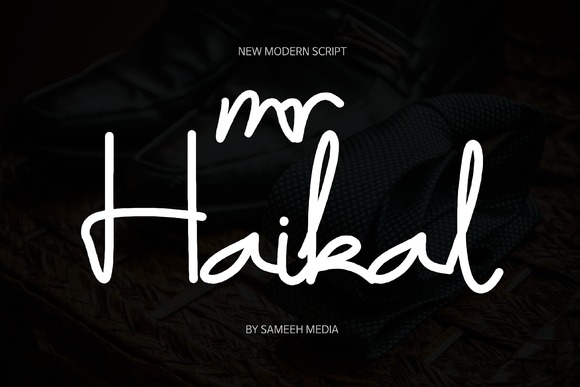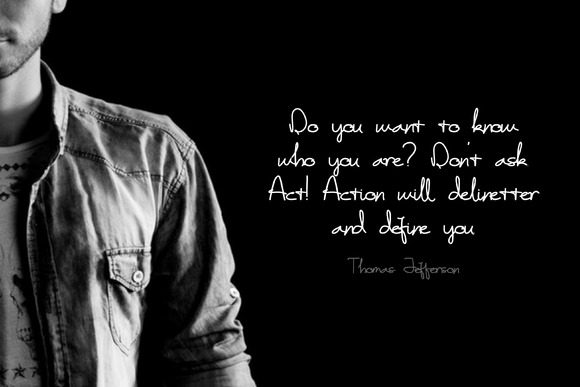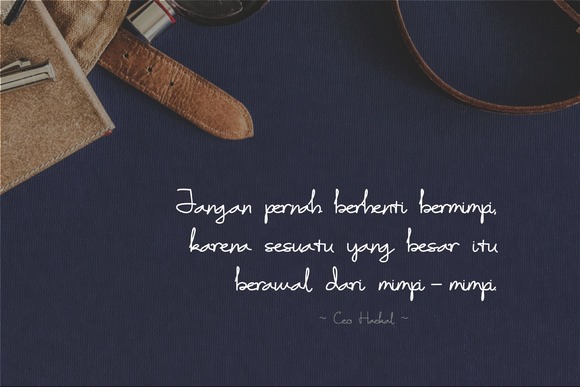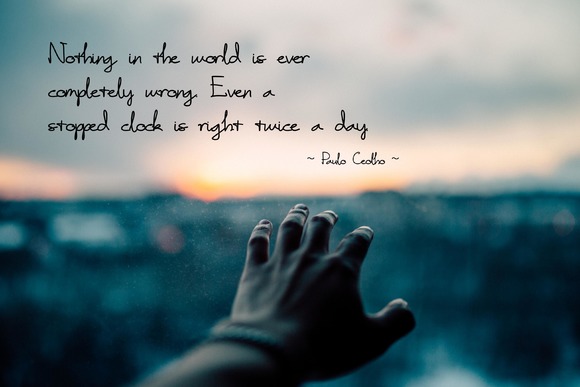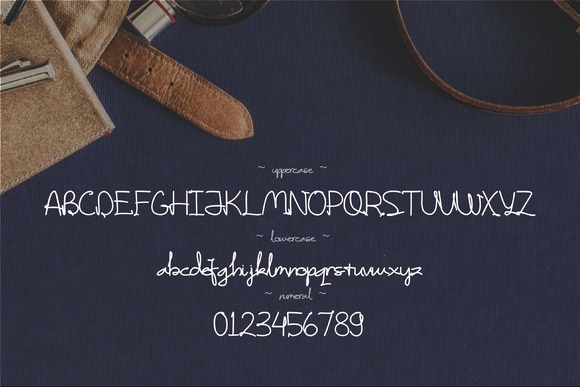
HomeScript FontsMr Haikal Font Script Fonts Mr Haikal Font FacebookXPinterestWhatsApp Mr Haikal Font Poster 2 Mr Haikal Font Poster 3 Mr Haikal Font Poster 4 Mr Haikal Font Poster 5 About Mr Haikal Font Mr Haikal comes with a modern, creative stroke. It’s ready to give your design a fresh style! DOWNLOAD ON CREATIVE FABRICAThis font is sold and delivered by Creative Fabrica. Font Canyon may earn a commission if you buy through this link. People also explored Mahallina Font Friendship Goal Font Spaceally Font Dolkern Font Mila Bright Font Joos Rilex Cuttauri Sands Tropical Font Duo (Craft Fonts, Handwritten Fonts, Font Duos, Wedding... Livercool Font 273 0 TagsMr Haikal Font Previous articlePoetry & Fiction FontNext articleKerape Font LEAVE A REPLY Cancel reply Comment: Please enter your comment! Name:* Please enter your name here Email:* You have entered an incorrect email address! Please enter your email address here Website: Save my name, email, and website in this browser for the next time I comment. Personal Use Free Messages Personal Use Free Read more about this font Williana Personal Use Free Read more about this font The Relapse Personal Use Free Read more about this font Anggraini Personal Use Free Read more about this font BLOG The 10 Best Handwriting Fonts to Add Personality to Your Designs 10 of the Best Handwriting Fonts for Adding Personality to Your Designs There will undoubtedly be no other better choice than handwriting fonts to give... Elegant Wedding Invitation Fonts – Handwritten & Script Fonts Modern Sans-Serif Fonts That Brands Love in 2025 Where to Buy American Fonts Online in 2024